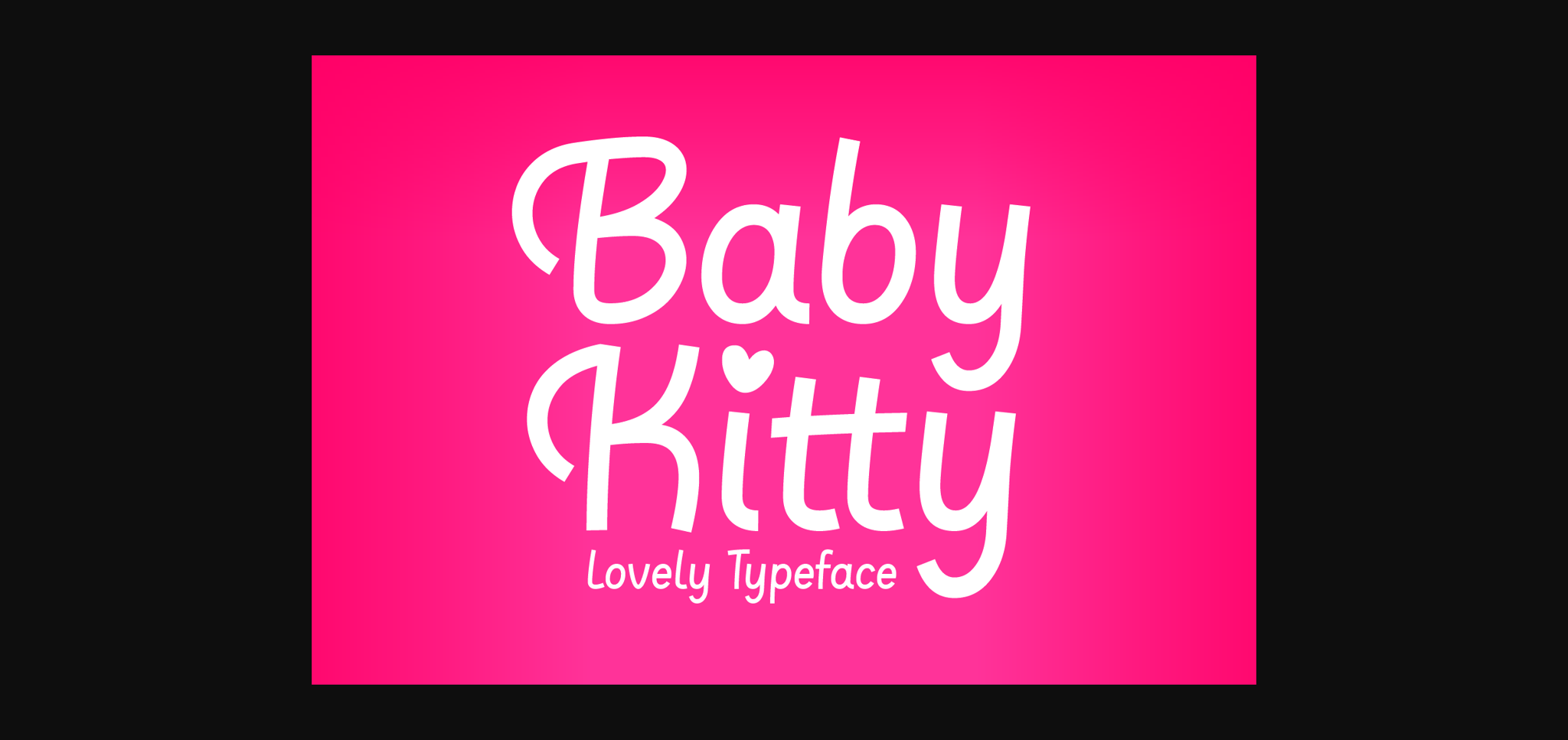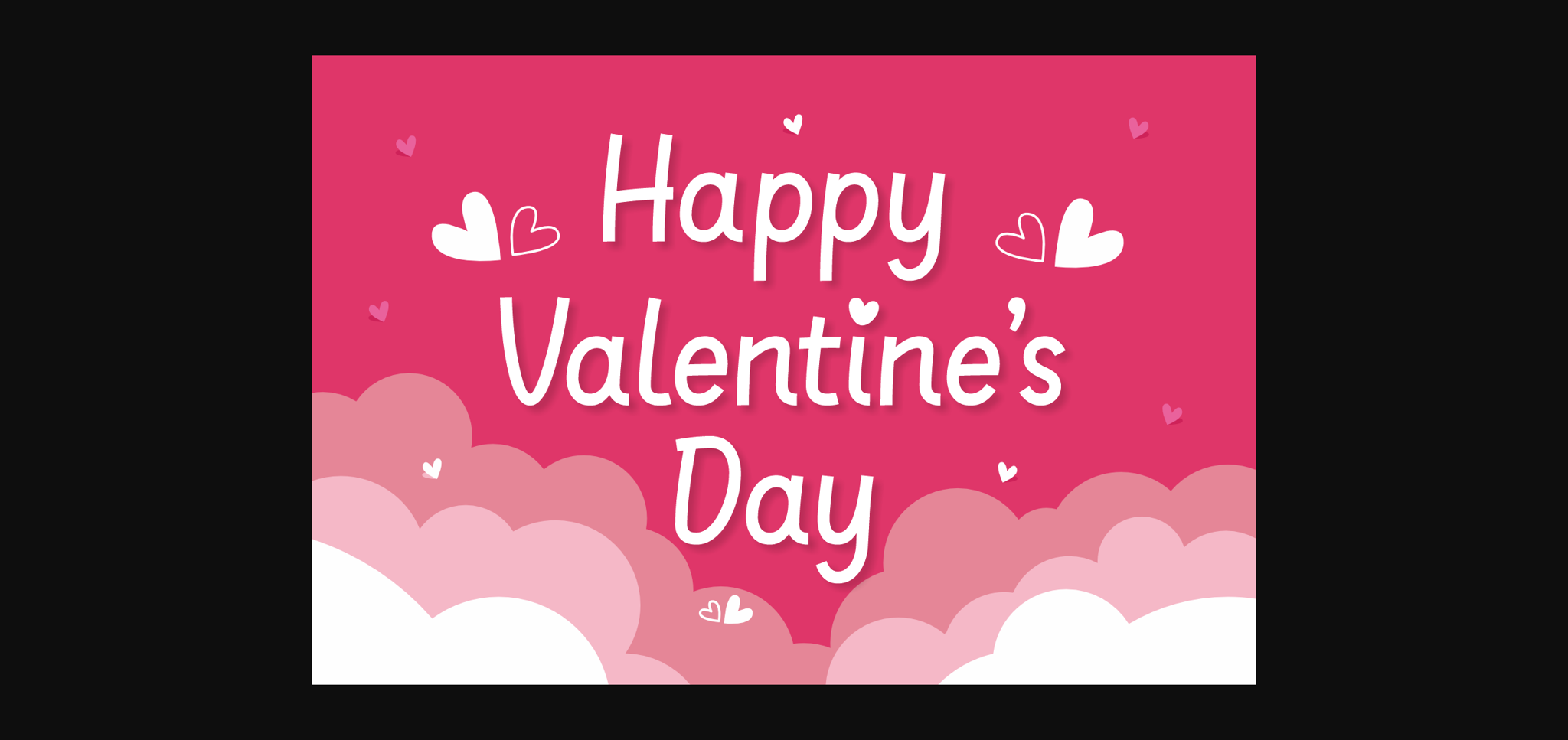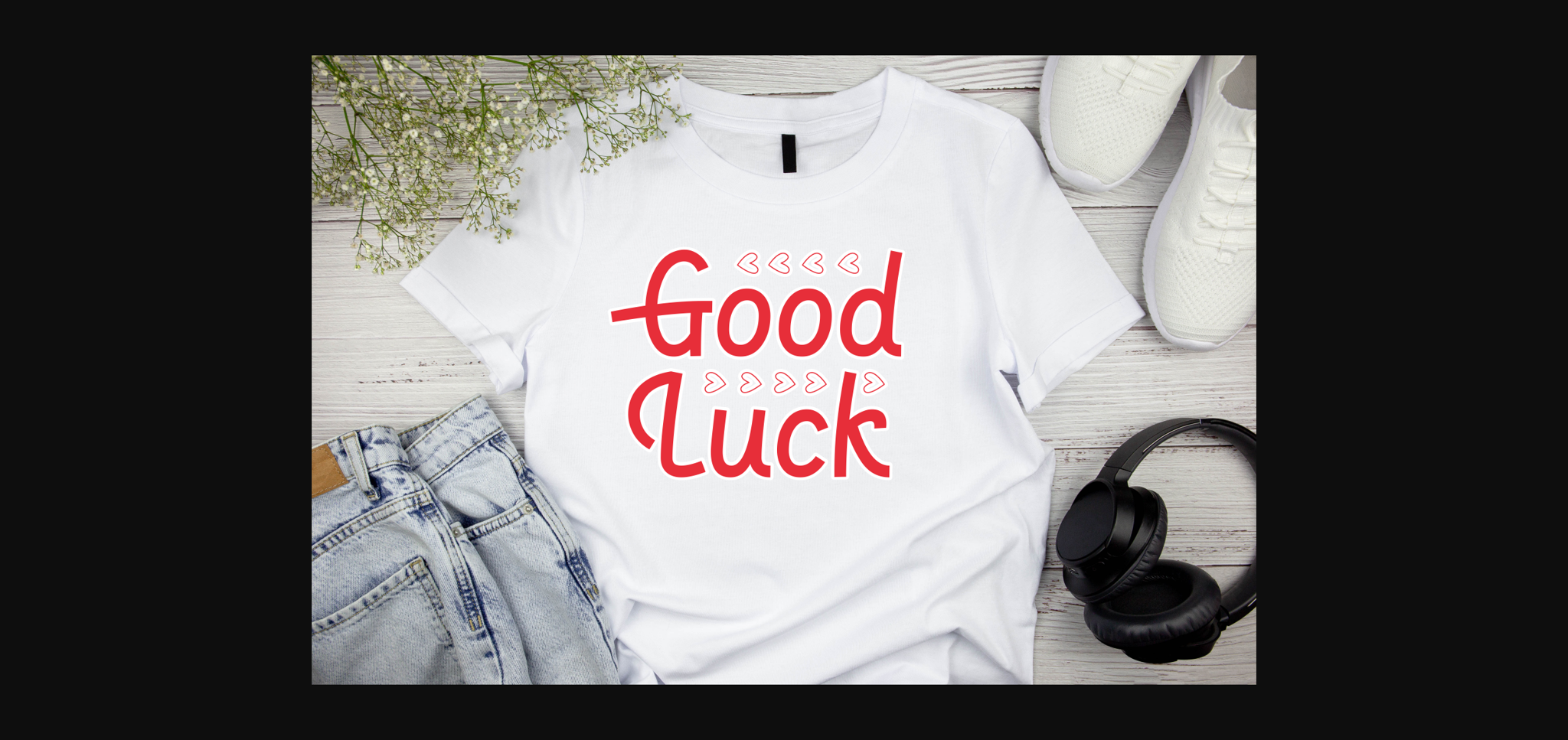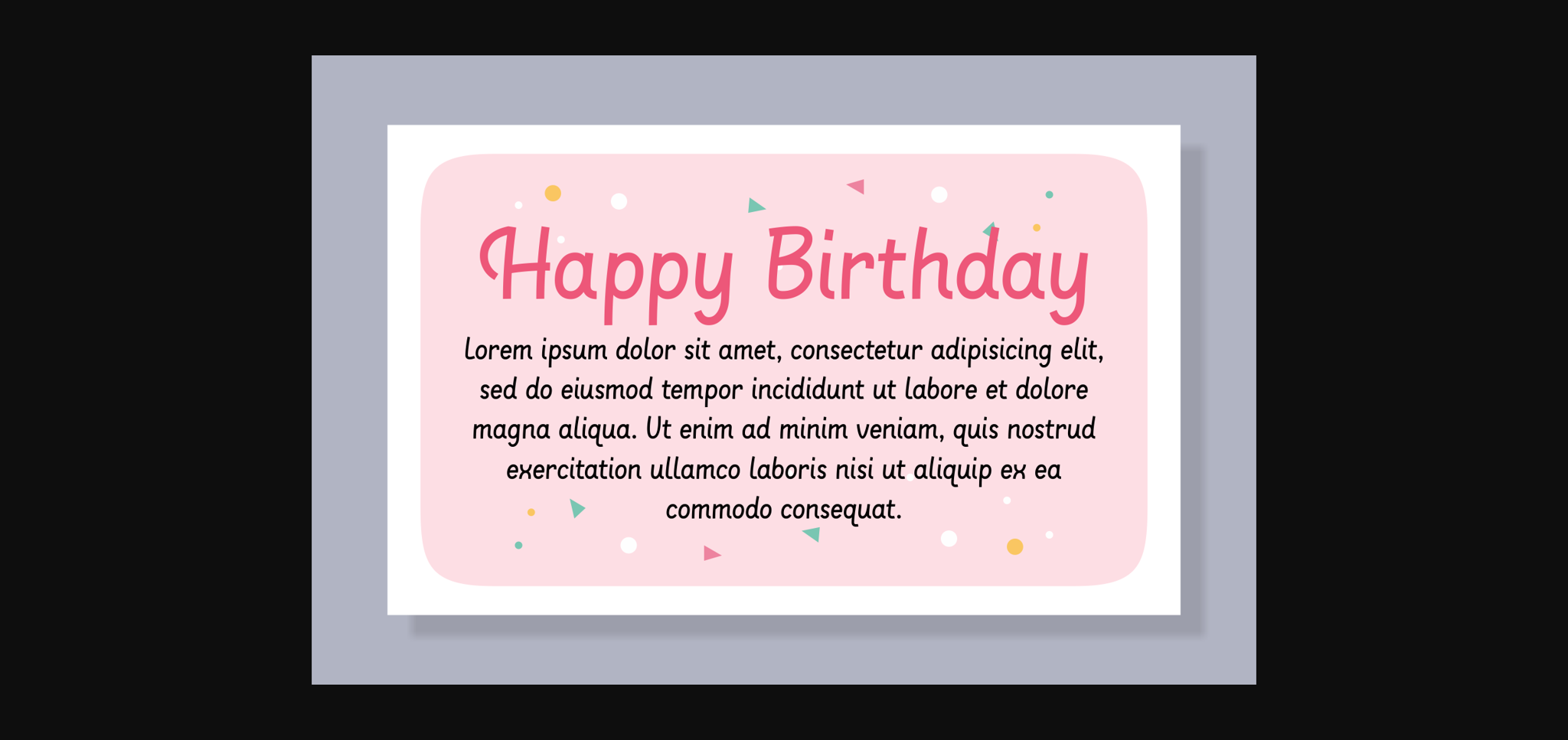
About Baby Kitty Font
Baby Kitty is a delightful sans-serif font exuding charm and innocence. Its rounded edges and gentle curves evoke a playful and cuddly vibe, perfect for children’s books, posters, and branding projects seeking a warm and inviting aesthetic. Baby Kitty adds a sprinkle of joy to any design endeavor.